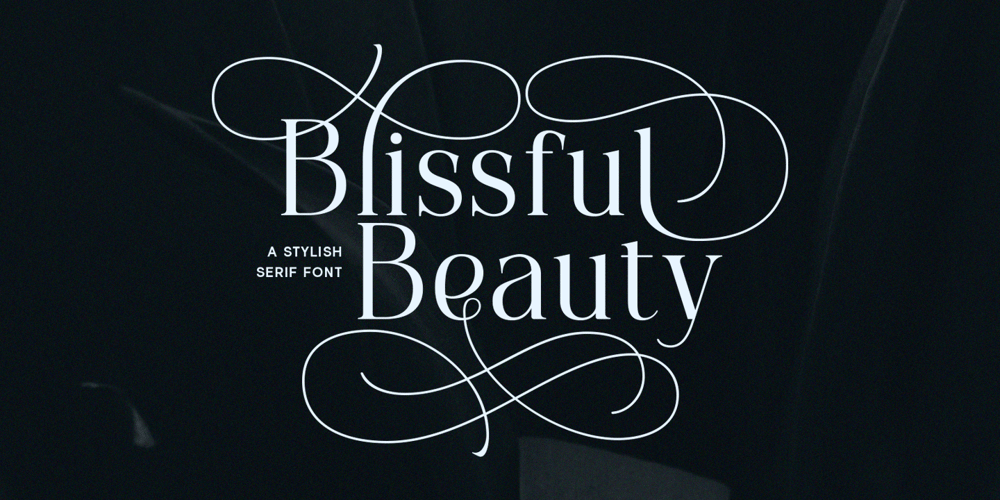
Blissful Beauty
Blissful Beauty font
Blissful Beauty Font Family was designed by Hendry Juanda and published by Letterhend. Blissful Beauty contains 1 styles and family package options. Blissful Beauty is a serif font that radiates elegance and sophistication. Its stylish alternates and delicate swashes make it the perfect choice for creating designs that demand a refined and chic look. From high-end branding to elegant wedding invitations, this font will captivate with its luxurious appeal.Features : Uppercase & lowercase Numbers and punctuation Alternates & Ligatures Multilingual PUA encoded We highly recommend using a program that supports OpenType features and Glyphs panels like many of Adobe apps and Corel Draw, so you can see and access all Glyph variations.